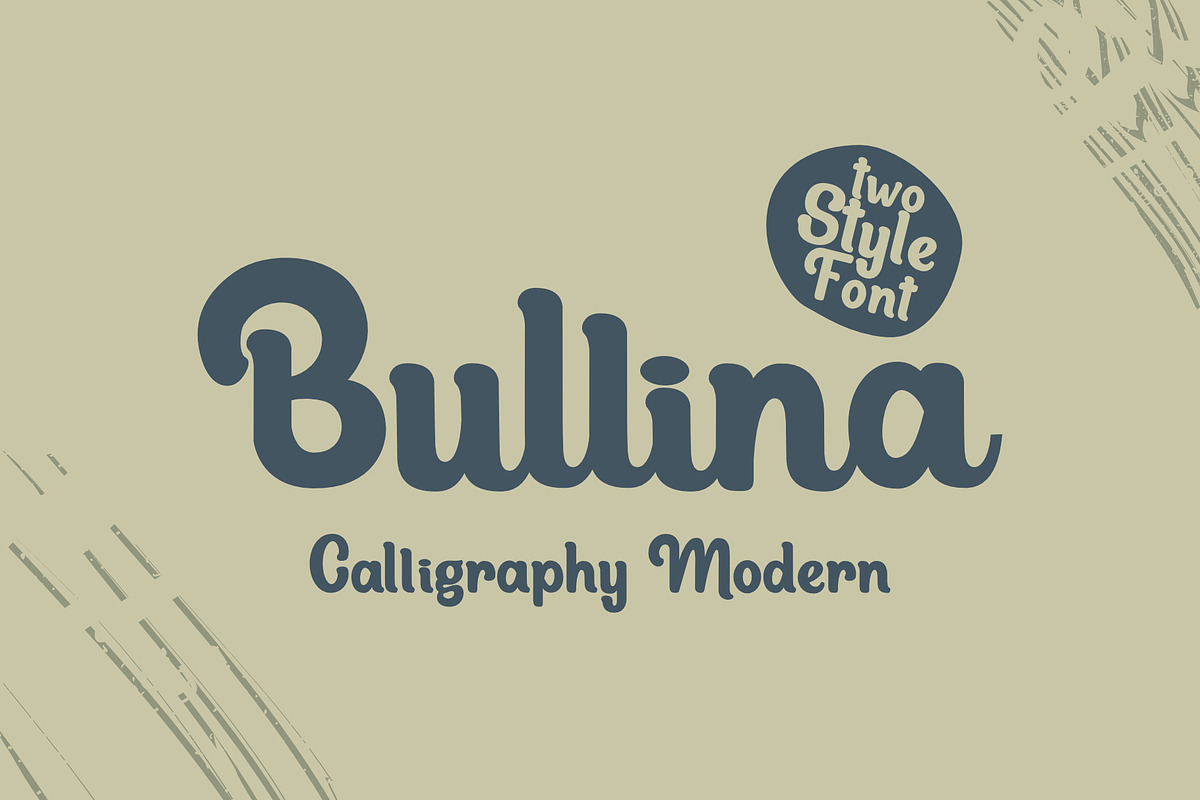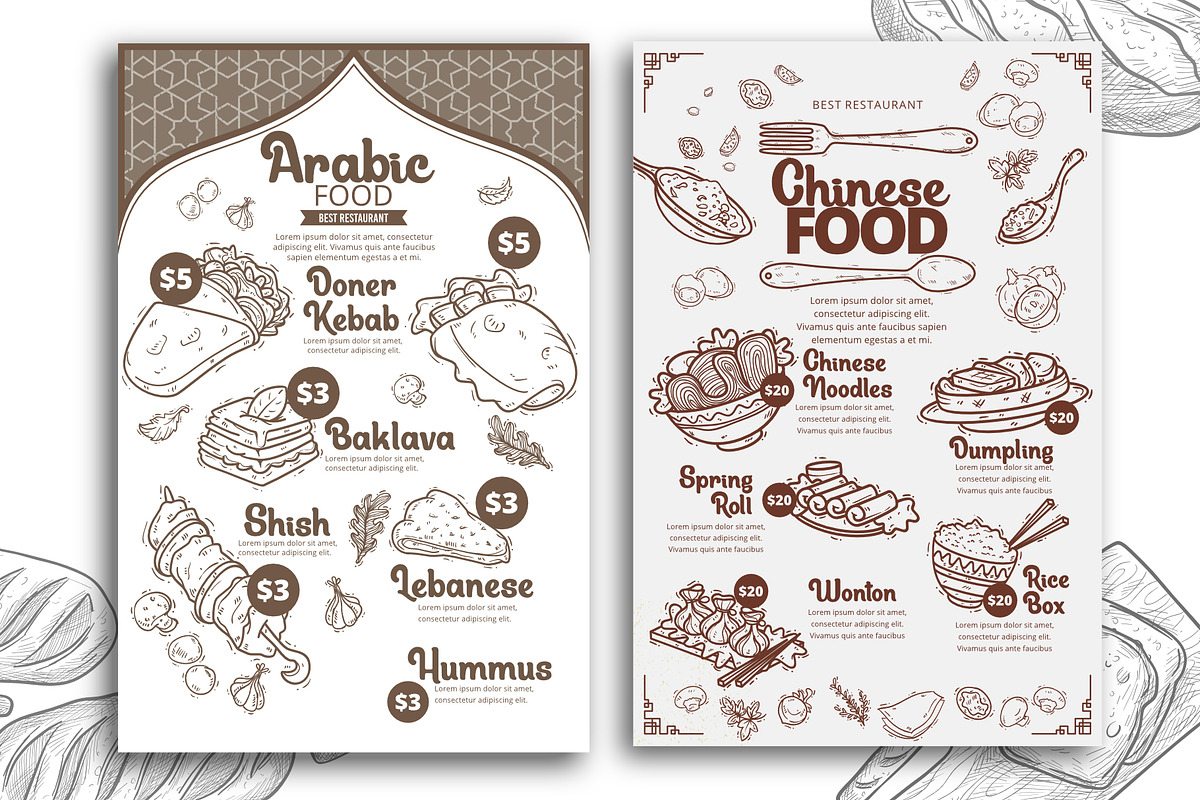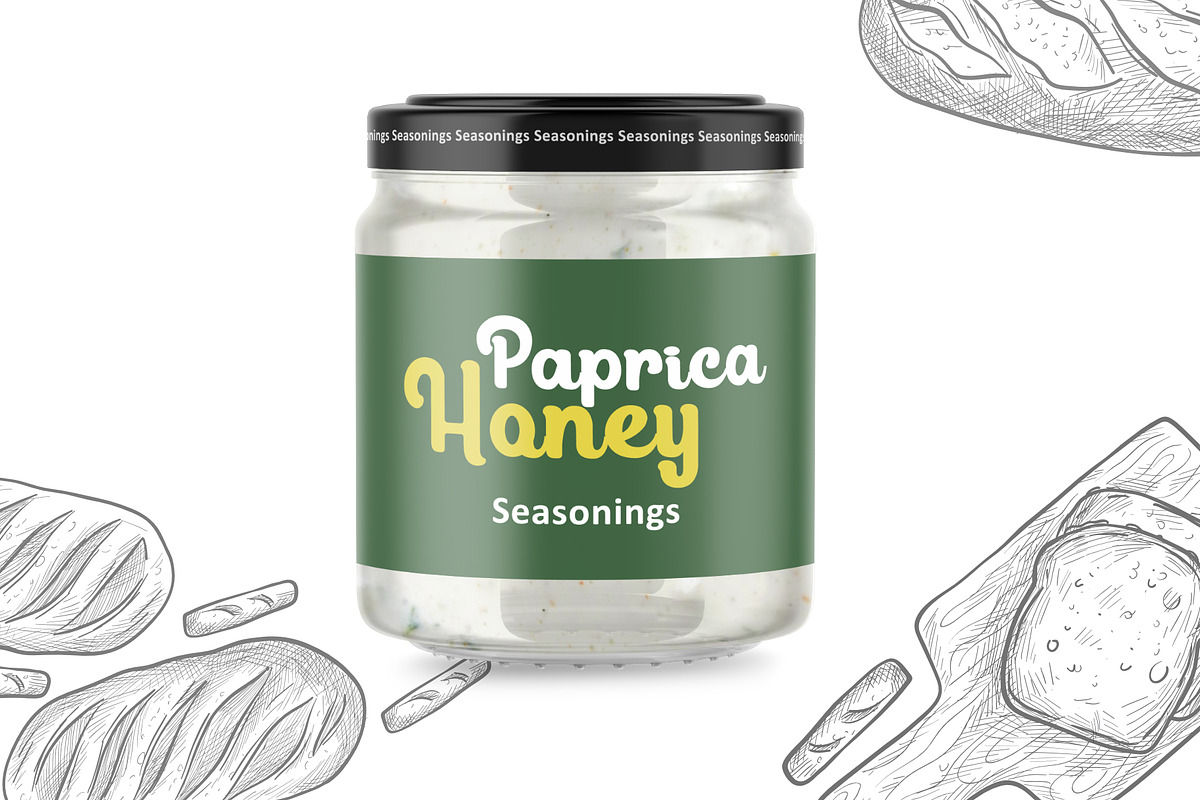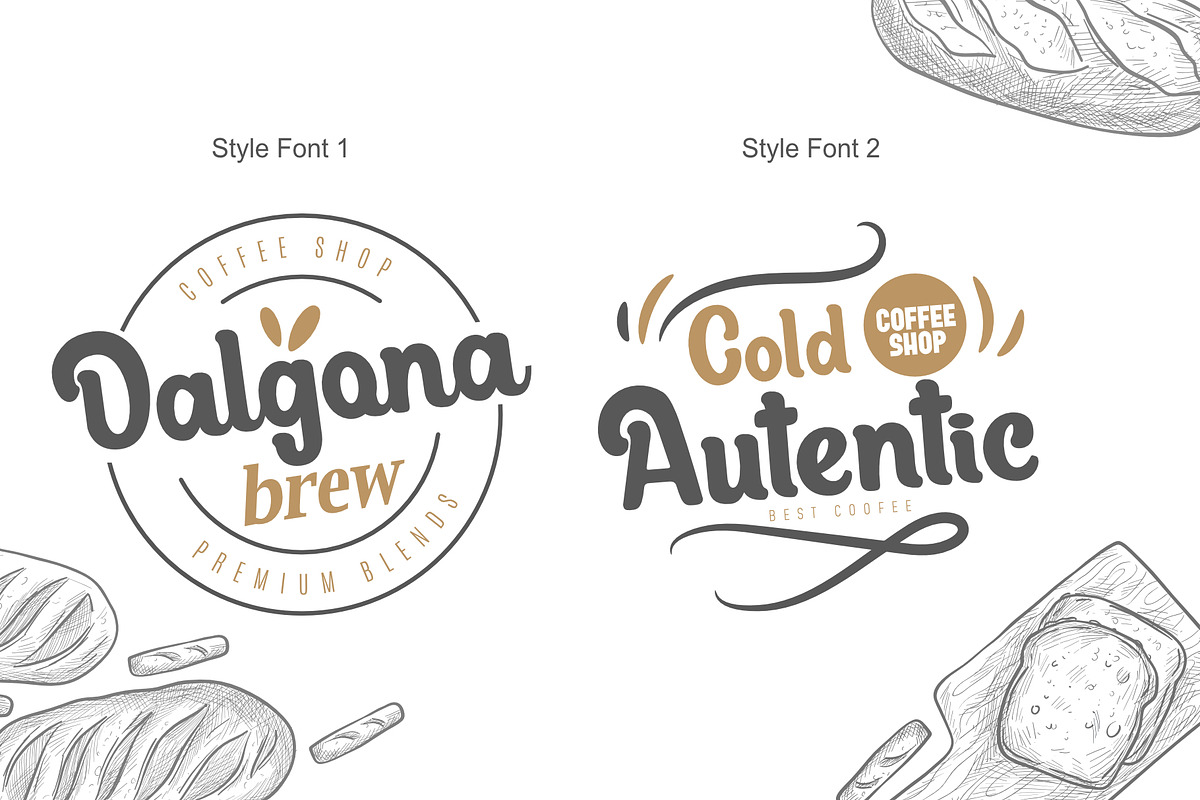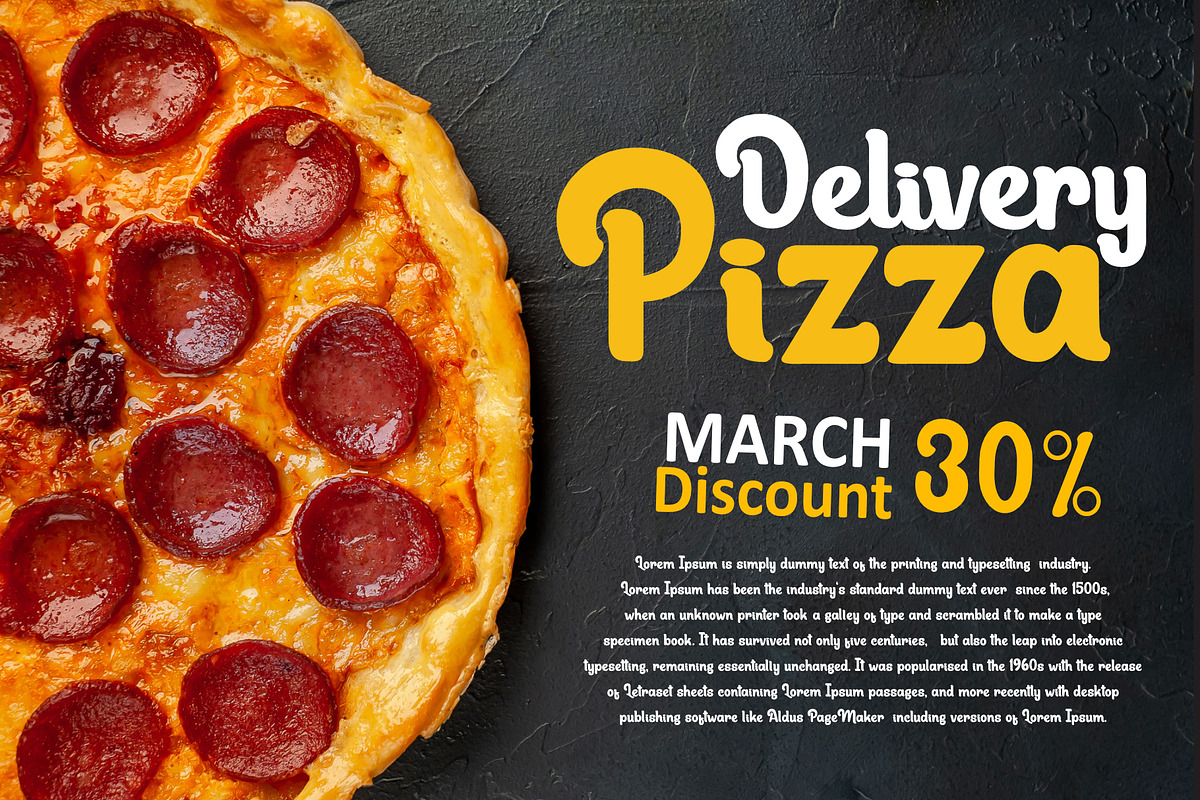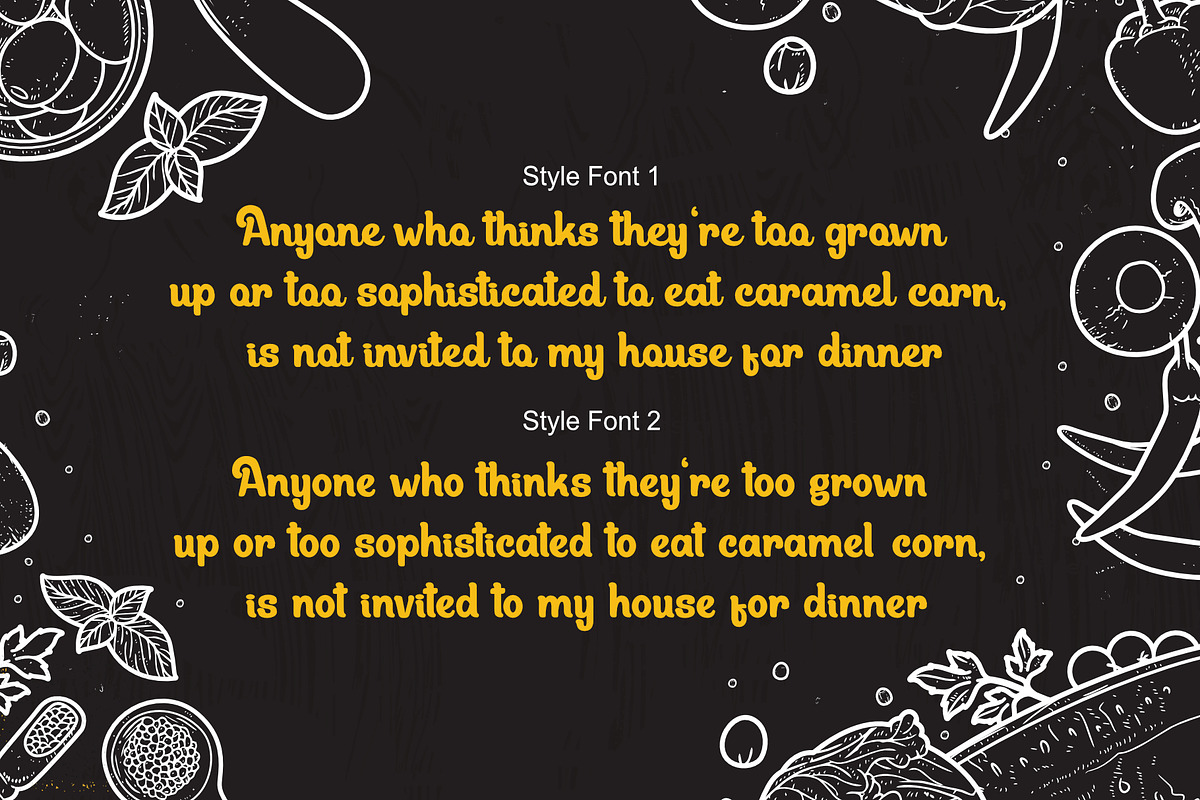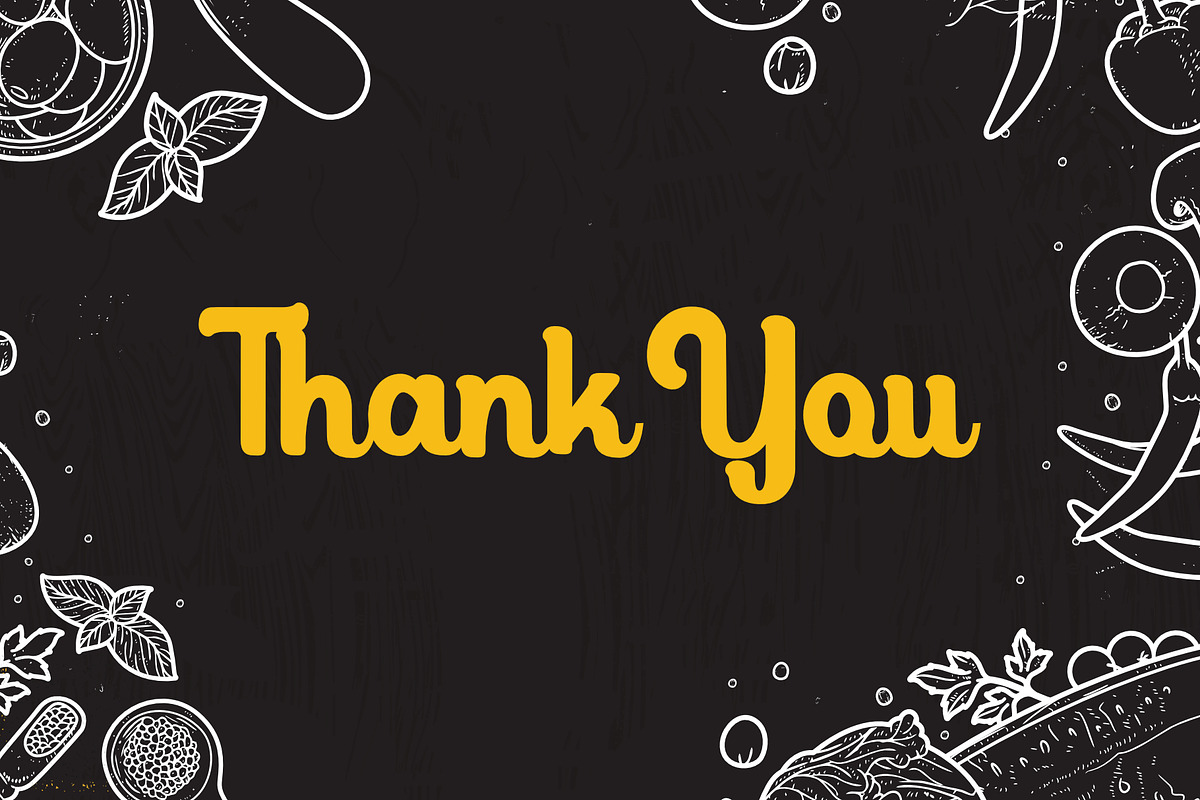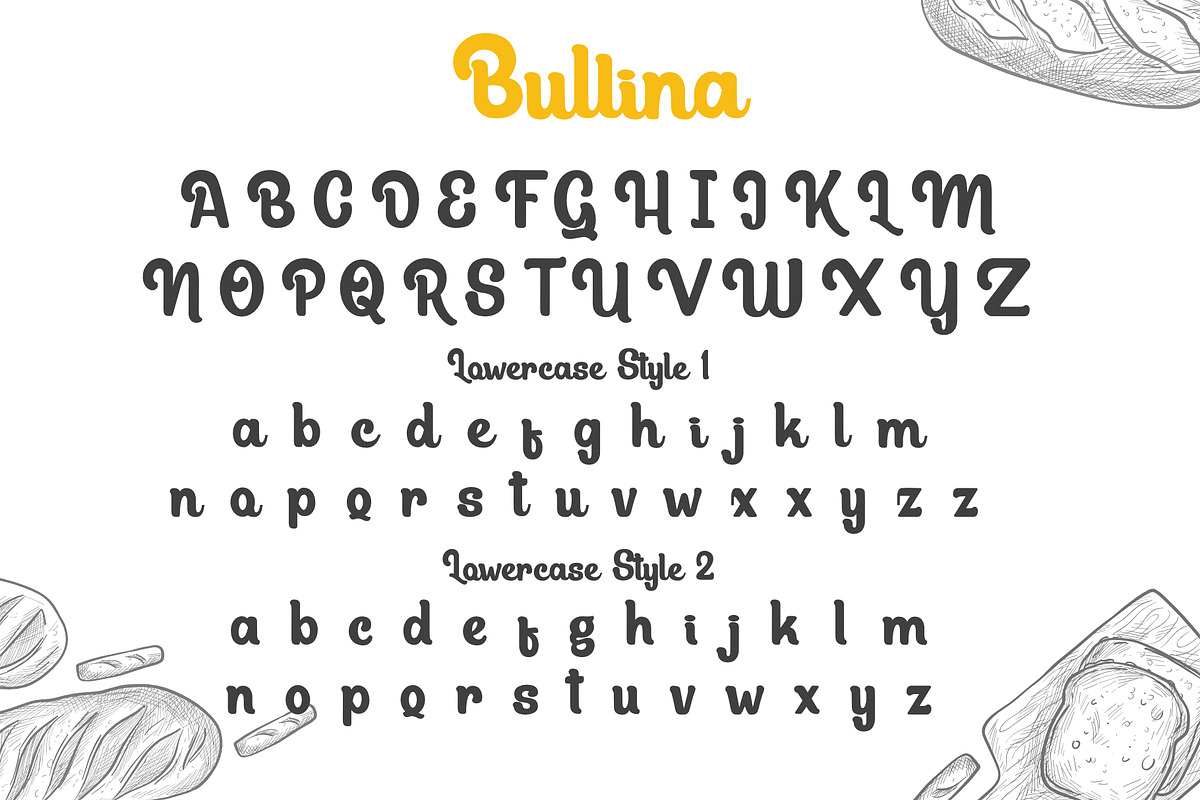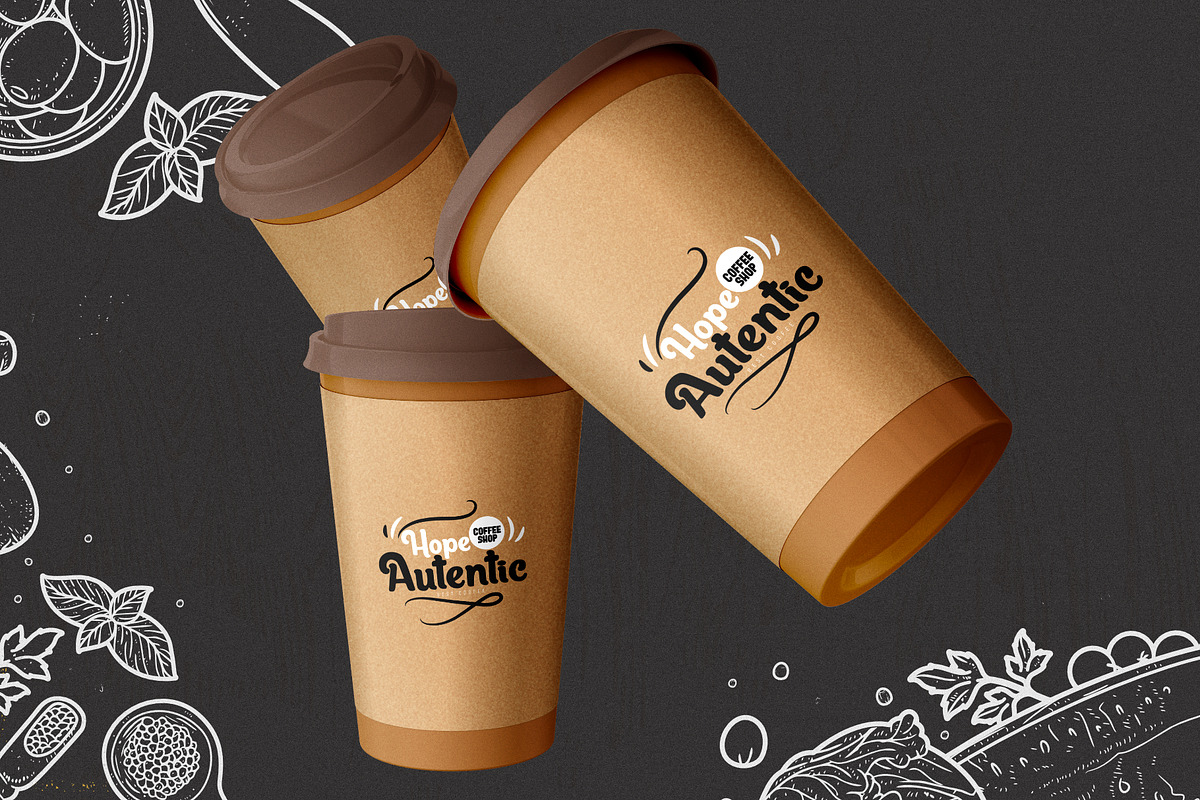
Bullina
Bullina Calligraphy Font
It is perfect for branding,logo, every other design which needs a Dsiplay.
Character set A-Z
Character set a-z
Support multilanguage glyphs